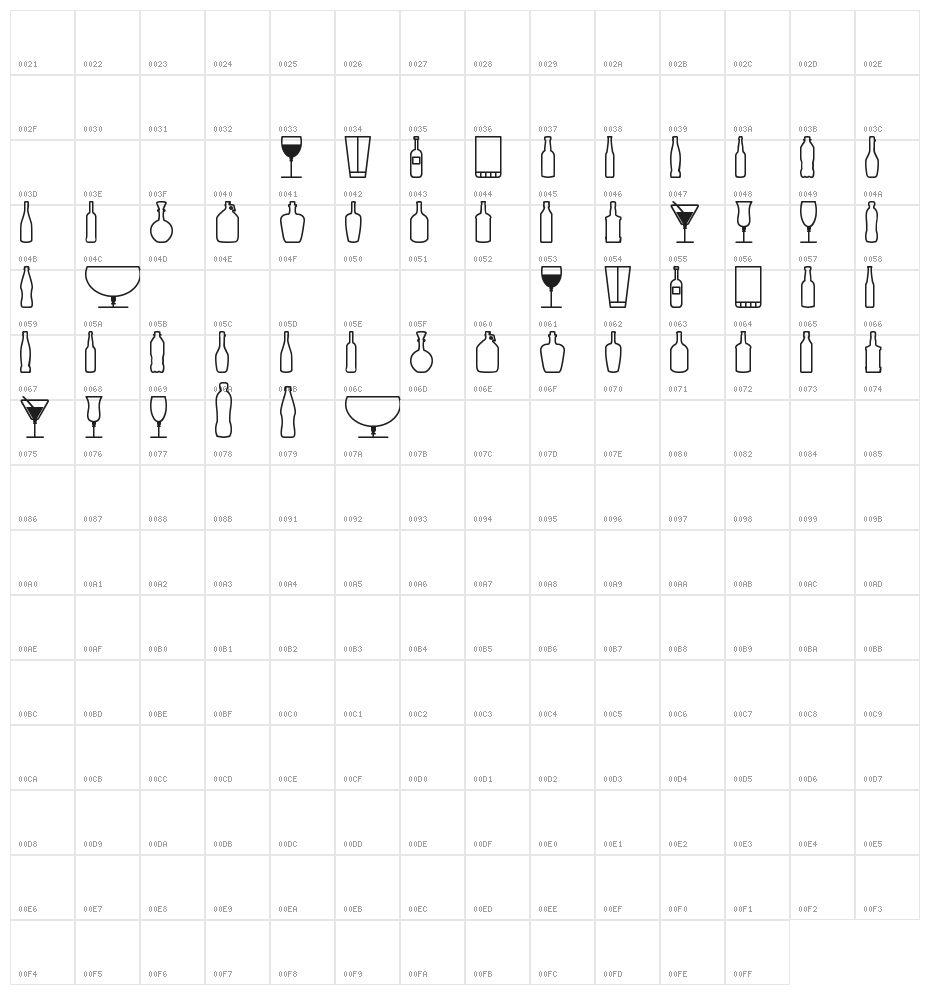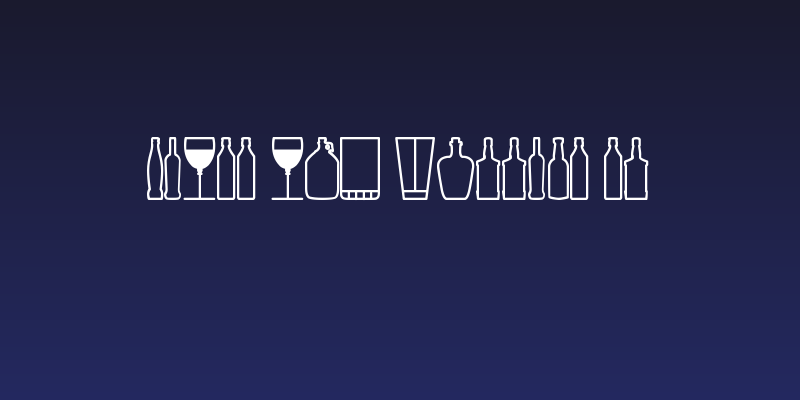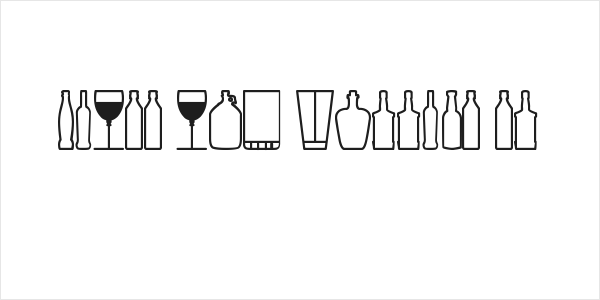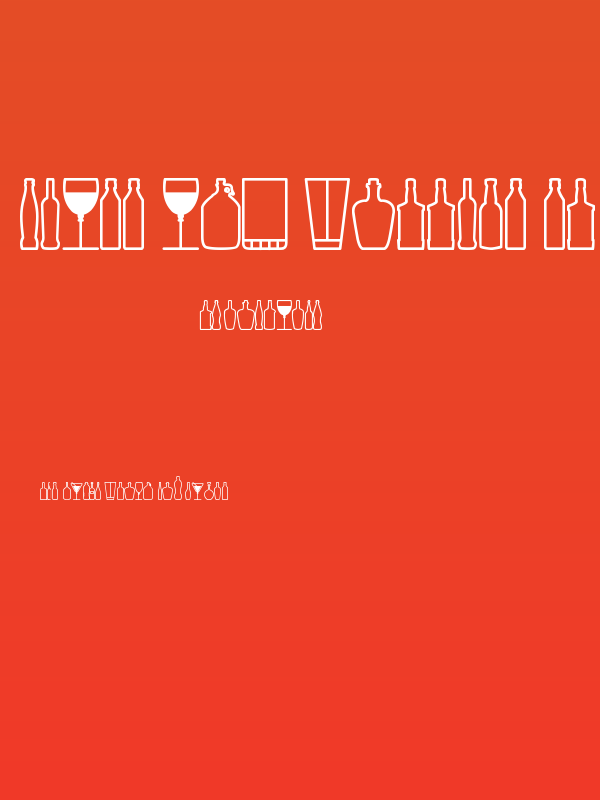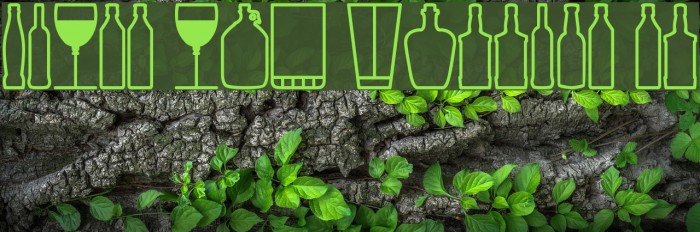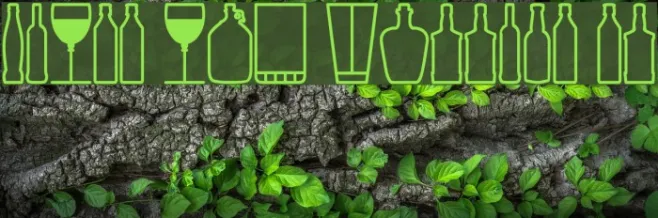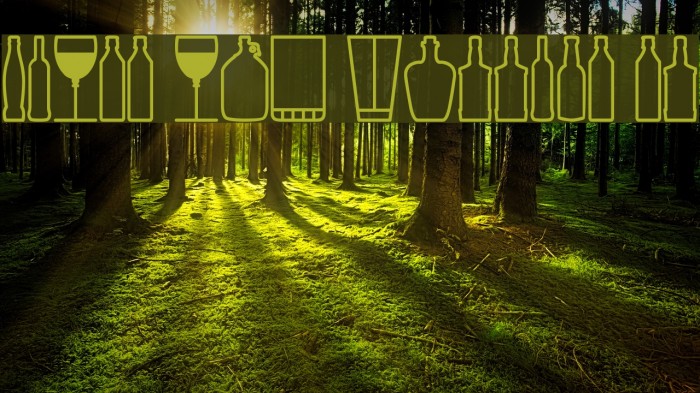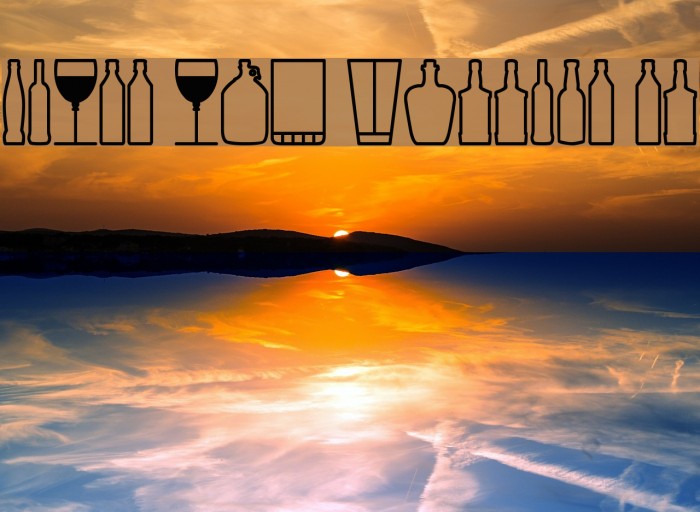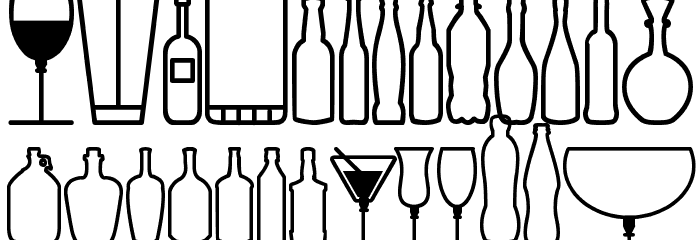
Glass and bottles St Font
Glass and bottles St Description
A decorative font composed entirely of outlined and filled silhouettes of various glassware and bottles, each character represented by a unique drink container shape. The style is playful and thematic, with consistent line thickness and a mix of solid and outline forms.
| Overall Style | Decorative, Playful, Thematic |
| Use Case | Logos, Headlines, Posters, Themed graphics |
| Proposed Projects | Bar menus, party invitations, beverage branding, event posters, themed signage. |